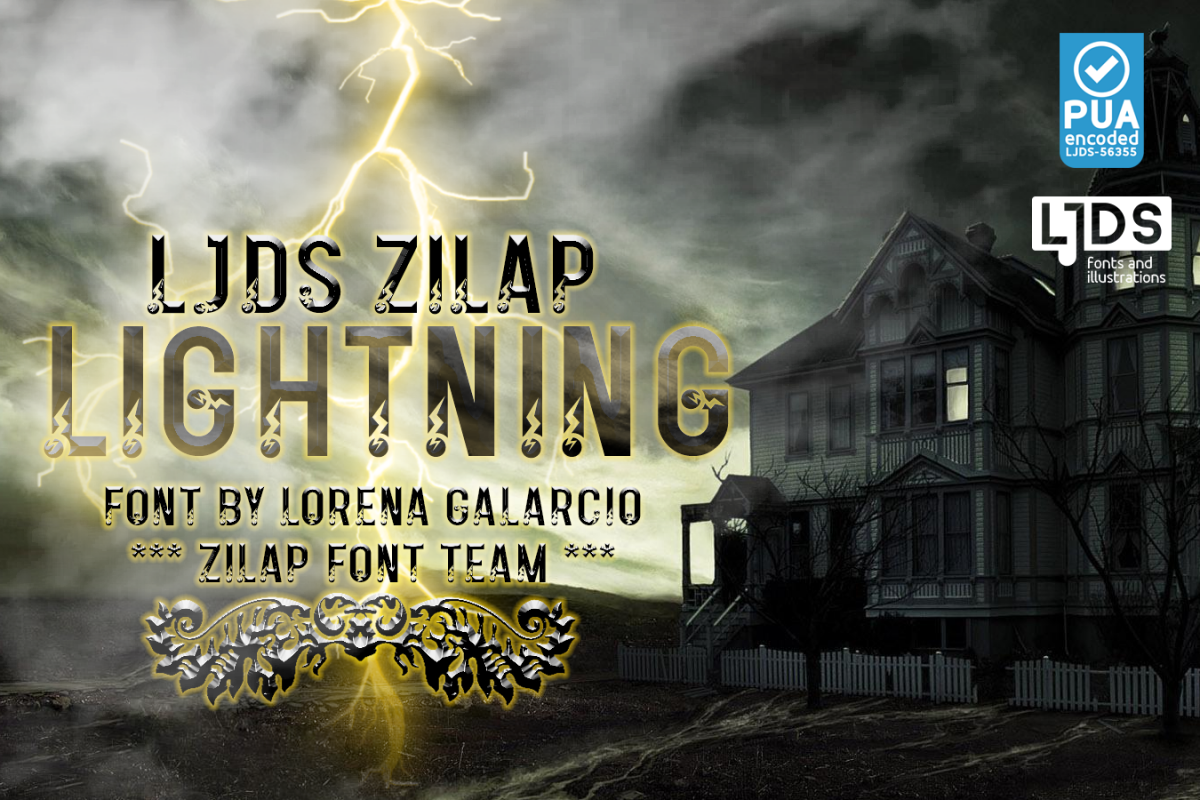
LJDS Zilap Lightning
Here another variable idea by Lorena Galarcio of LJDS based on the idea of Juan Navarro Zilap Font team, this is a style inspired by the lightning bolts of the sky and the author's dark world. A simple but powerful design.
Aquí otra variable idea por Lorena Galarcio de LJDS basada en la idea de Zilap Font team de Juan Navarro, esto es un estilo inspirado en los relámpagos del cielo y en el mundo oscuro de la autora. un sencillo pero potente diseño.